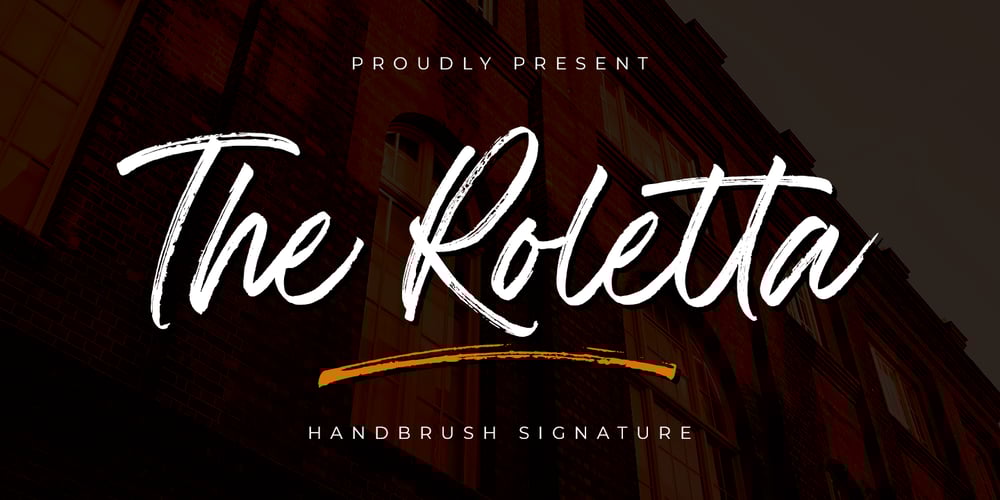
The Roletta Font Family was designed by Abdul Malik Wisnu and published by Almarkha Type. The Roletta contains 5 styles and family package options. Introducing The Rolleta – Handbrush Signature is a brush script that is written casually and quickly. Letters are made with brushes on paper. Then scanned and carefully drawn into vector format. That is why The Rolleta has charming, authentic and relaxed characteristic,has 4 styles of regular, slant, Alternate , and Alternate Slant variations with a more natural look to your text with a more natural look to your text. The Rolleta is perfect for homeware designs, branding projects, Logo, design, Quotes, Product packaging, Photography, WatermarkWhat’s Included : + Standard glyphs + Ligatures + Web Font + Works on PC & Mac + Simple installations Accessible in the Adobe Illustrator, Adobe Photoshop, Adobe InDesign, even work on Microsoft Word. PUA Encoded Characters – Fully accessible without additional design software. Fonts include multilingual support Image used : All photographs/pictures/vector used in the preview are not included, they are intended for illustration purpose only.Cheers! Thank You